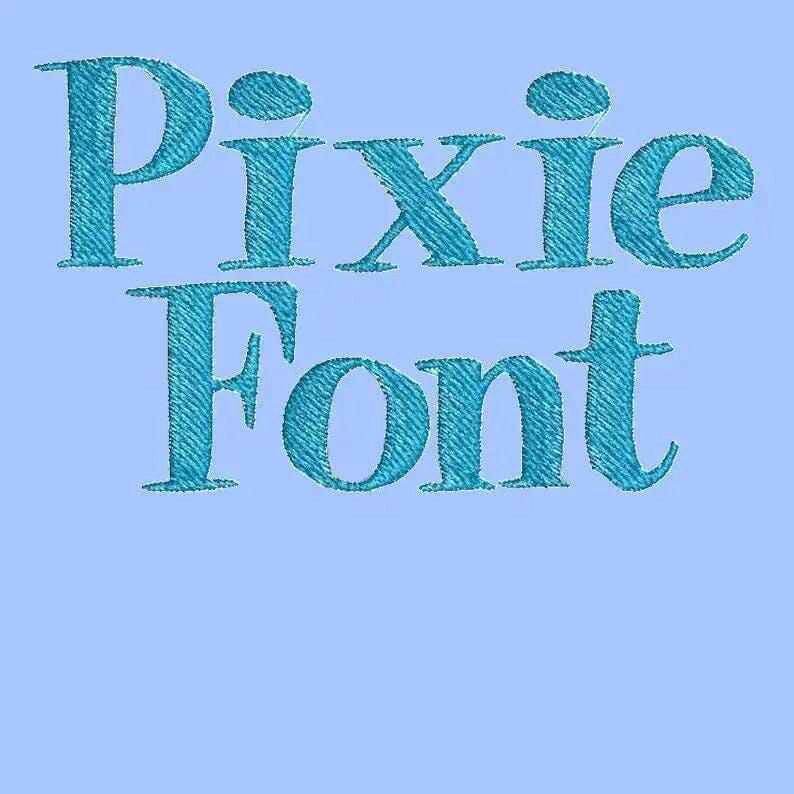
Transform your embroidery projects into whimsical masterpieces with the Pixie Embroidery Alphabet Font Set – where creativity meets elegance!
Introducing the Pixie Embroidery Alphabet Font Set, your new go-to for adding a dash of charm and sophistication to your creations. This exquisite font set is designed to elevate your embroidery game, offering intricate designs that are sure to impress. Whether you're embellishing a personalized gift or creating unique home decor, this high-quality font set provides the perfect finishing touch.
Why You'll Love This Design
The Pixie Embroidery Alphabet Font Set boasts intricate details and elegant curves that will make your embroidery stand out. Each letter is carefully crafted, ensuring that your projects look polished and professional. With varied dimensions, this versatile font set adapts effortlessly to any project, making it an essential addition to your embroidery collection.
Creative Applications
Let your imagination soar! This font set is perfect for creating personalized gifts, stunning home decor, and unique apparel. Imagine crafting a beautiful monogram for a wedding gift or designing a whimsical name banner for your child's room. The possibilities are endless, and with the Pixie Embroidery Alphabet Font Set, you can bring your creative visions to life with ease.
Digitized for Passionate Embroiderers
At FineryEmbroidery, we understand the heart and passion that goes into every embroidery project. We crafted the Pixie Embroidery Alphabet Font Set with love, ensuring that each design is digitized with precision for smooth and enjoyable use. Whether you're a seasoned pro or just starting out, our font set is designed to inspire and make your embroidery journey a delightful experience.
- Perfect for personalized gifts, home decor, and more.
Details & Craftsmanship
Description
Transform your embroidery projects into whimsical masterpieces with the Pixie Embroidery Alphabet Font Set – where creativity meets elegance!
Introducing the Pixie Embroidery Alphabet Font Set, your new go-to for adding a dash of charm and sophistication to your creations. This exquisite font set is designed to elevate your embroidery game, offering intricate designs that are sure to impress. Whether you're embellishing a personalized gift or creating unique home decor, this high-quality font set provides the perfect finishing touch.
Why You'll Love This Design
The Pixie Embroidery Alphabet Font Set boasts intricate details and elegant curves that will make your embroidery stand out. Each letter is carefully crafted, ensuring that your projects look polished and professional. With varied dimensions, this versatile font set adapts effortlessly to any project, making it an essential addition to your embroidery collection.
Creative Applications
Let your imagination soar! This font set is perfect for creating personalized gifts, stunning home decor, and unique apparel. Imagine crafting a beautiful monogram for a wedding gift or designing a whimsical name banner for your child's room. The possibilities are endless, and with the Pixie Embroidery Alphabet Font Set, you can bring your creative visions to life with ease.
Digitized for Passionate Embroiderers
At FineryEmbroidery, we understand the heart and passion that goes into every embroidery project. We crafted the Pixie Embroidery Alphabet Font Set with love, ensuring that each design is digitized with precision for smooth and enjoyable use. Whether you're a seasoned pro or just starting out, our font set is designed to inspire and make your embroidery journey a delightful experience.
- Perfect for personalized gifts, home decor, and more.